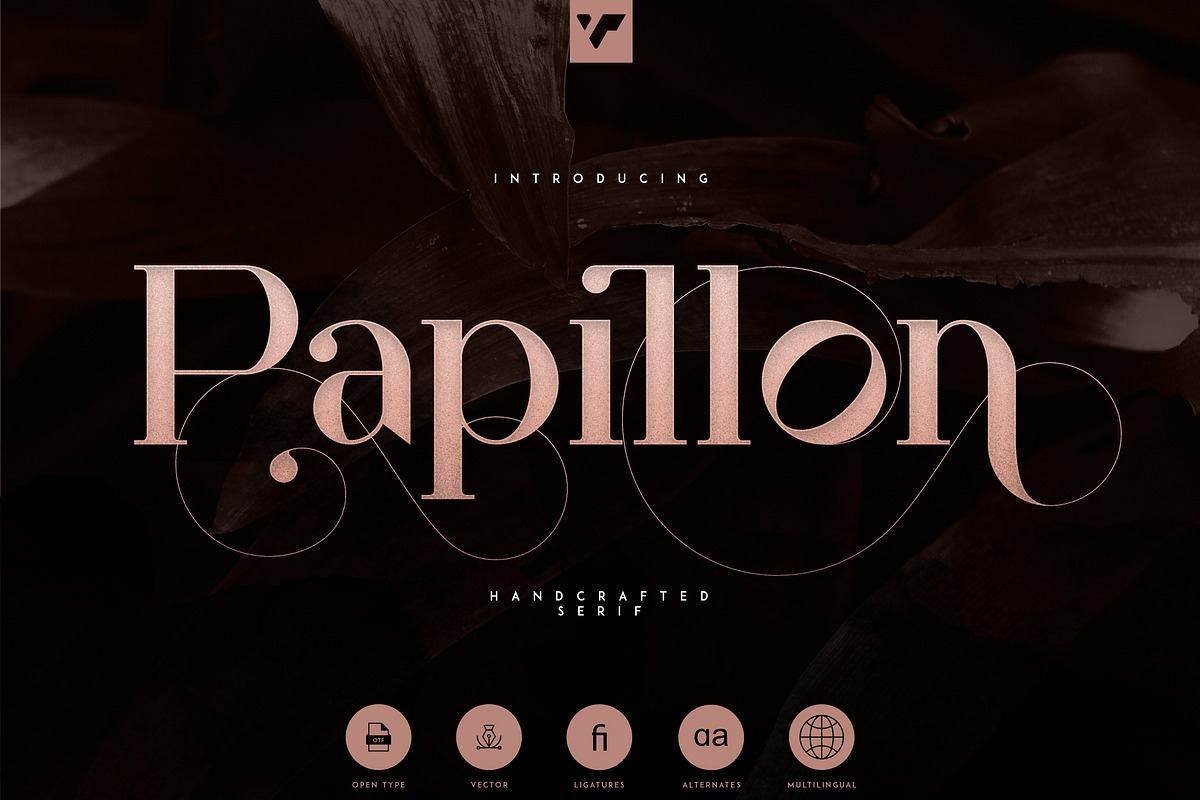
Papillon – Handcrafted Serif Font Free Download is a beautifully detailed typeface that combines classic serif elegance with a unique, artisanal twist. With its delicate curves and handcrafted charm, Papillon is perfect for editorial layouts, branding, invitations, packaging, and creative projects that call for sophistication with a personal touch.
Designed to bring warmth and authenticity to your typography, Papillon – Handcrafted Serif Font Free Download features refined serifs, balanced spacing, and subtle irregularities that highlight its handmade nature. Whether you're creating a fashion label, designing a magazine spread, or crafting a romantic visual identity, this font adds timeless beauty and thoughtful design.